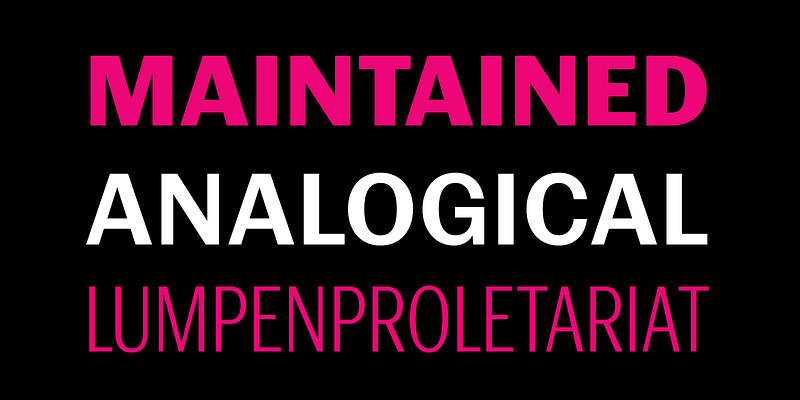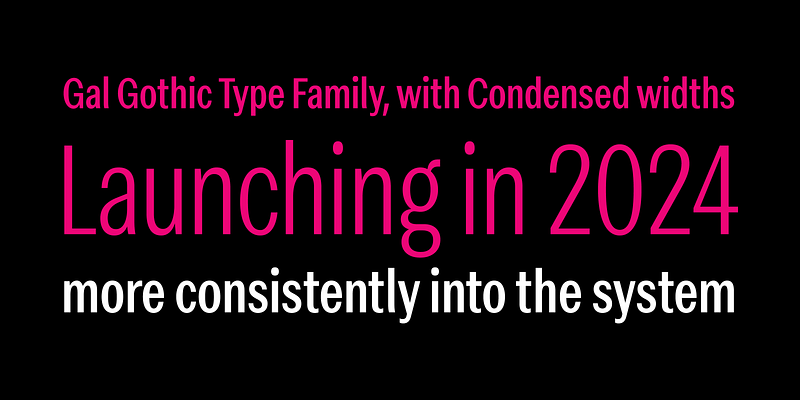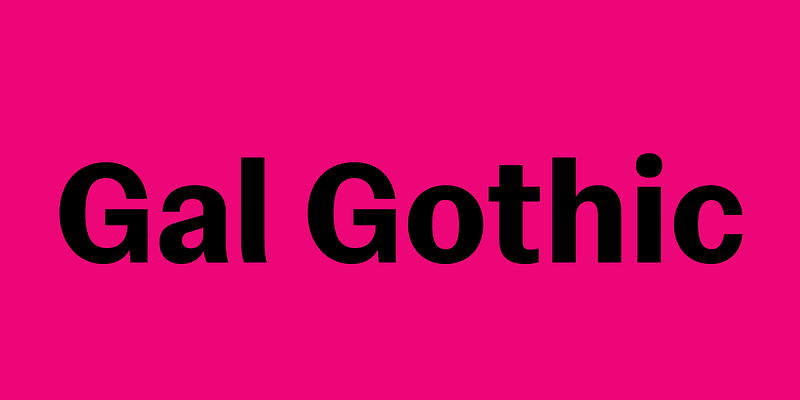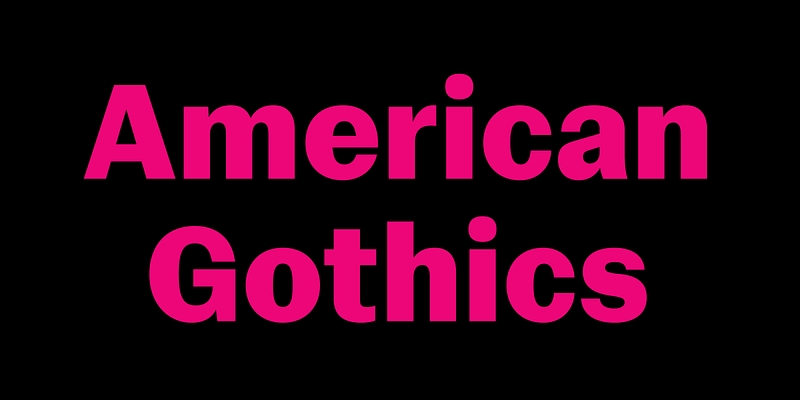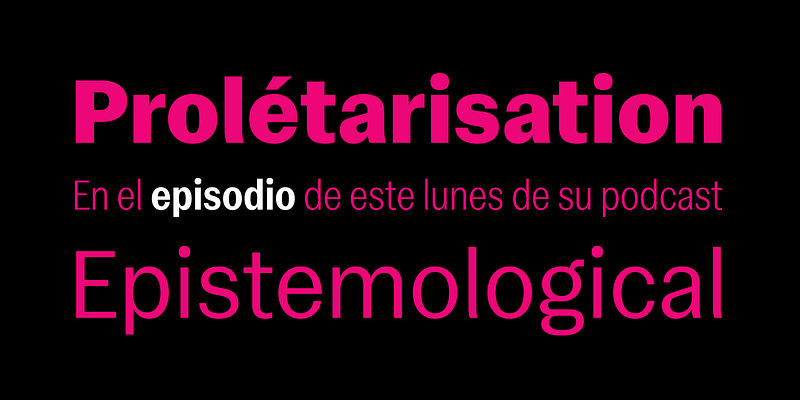
Gal Gothic is a sans serif whose main inspiration is the classic Franklin Gothic by Morris Fuller Benton (1904). Franklin’s very moderate stroke contrast is perhaps its most identifiable formal feature, and probably what gives it its own personality, setting it apart from other grotesques of its time. This contrast, however, is much more noticeable in the heavier weights, while the lighter ones have a certain monolinearity. This is probably due to the fact that Benton only designed the heaviest weight, while the rest were added much later, by the hands of Victor Caruso for ITC (1980). Gal Gothic seeks to take this contrast also to the lighter weights, integrating them more consistently into the system. In addition, its horizontal endings and smooth connection between vertical and curved stems, bring this design closer to the neo-grotesque model and, together with the round dots, give it a very different tone of voice compared to the original reference. With slightly condensed proportions, this display design is ideal for compact and economic titles. Each font has approximately 900 glyphs and offers extensive language support, as well as OpenType features such as small caps, tabular and old style figures, and a variable version with weight and width axes. Its name is a tribute to the Brazilian singer Gal Costa.